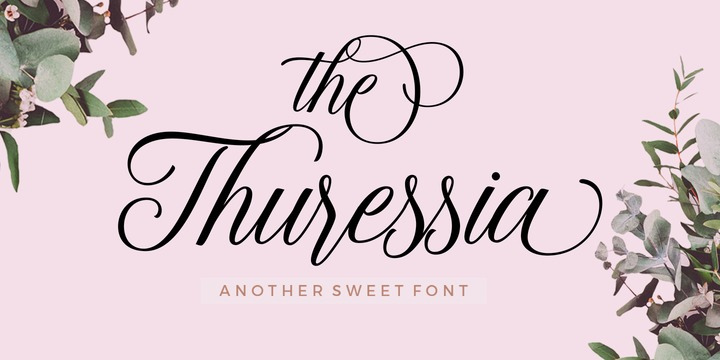
Thuressia Script Font
Thuressia Script Font is perfect for wedding invitations, luxury brand logos, feminine product packaging, beauty salon branding, high-end stationery, elegant greeting cards, fashion boutique signage, jewelry advertisements, calligraphy artwork, and sophisticated social media graphics.
What makes Thuressia Script Font so exciting is its exquisite flowing letterforms that perfectly mimic the artistry of professional hand-lettering with graceful flourishes and elegant connections between characters. This typeface embodies sophistication and femininity through its delicate strokes and organic curves that dance across the page with natural rhythm and beauty. The font's captivating charm stems from its ability to transform ordinary text into luxurious, handcrafted artwork that immediately elevates any design project with its romantic and refined aesthetic.
Thuressia Script Font comes in multiple variations including Regular, Bold, Light, and Alternate character sets, along with an extensive collection of decorative swashes, ligatures, and ornamental elements that provide endless customization possibilities for creating unique and personalized designs.
Whether you're designing elegant wedding materials, creating luxury brand identities, or developing feminine marketing campaigns, Thuressia Script Font Free Download delivers unmatched elegance and sophisticated charm. This versatile script typeface maintains its beautiful character across various sizes while ensuring readability in both display and text applications. The font's carefully crafted letterforms feature smooth connections and balanced proportions that create harmonious text flow with an authentic handwritten appearance.
Professional designers and luxury brands consistently choose Thuressia Script Font for projects requiring refined elegance and feminine sophistication. Its graceful styling makes it particularly effective for high-end fashion, beauty, wedding, and lifestyle brands seeking to communicate exclusivity and artisanal quality. The font's romantic personality and luxurious appearance create immediate emotional connections with target audiences while conveying values of craftsmanship, elegance, and premium positioning that are essential for upscale market positioning.